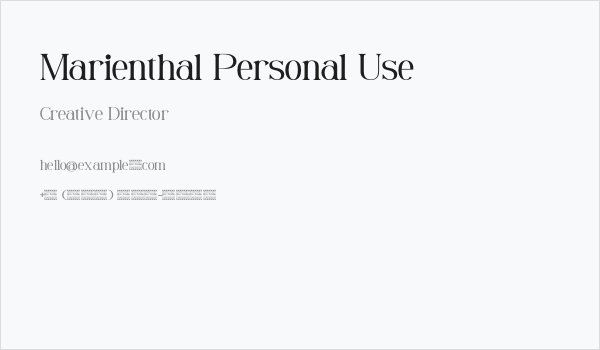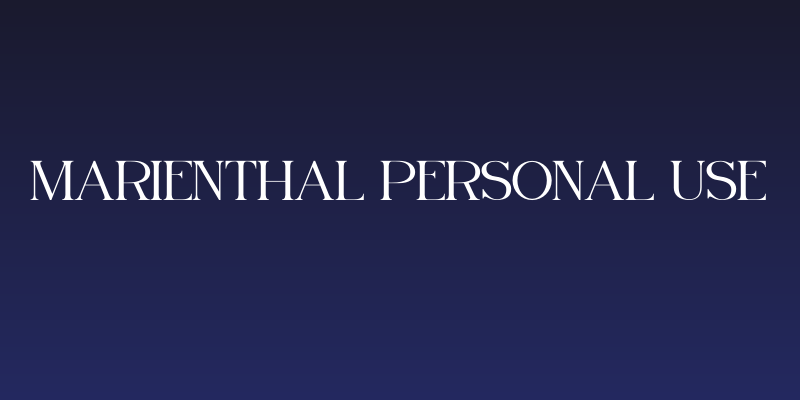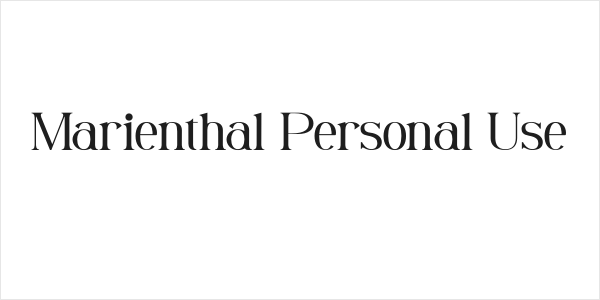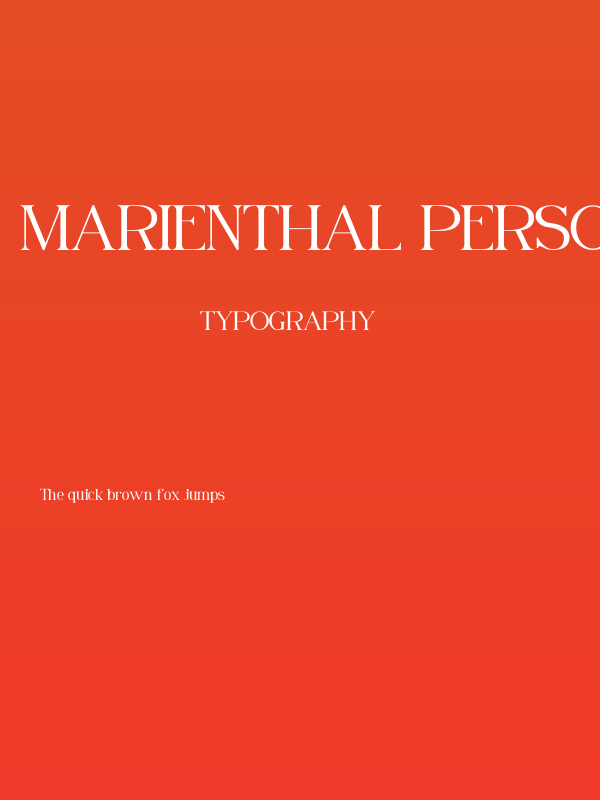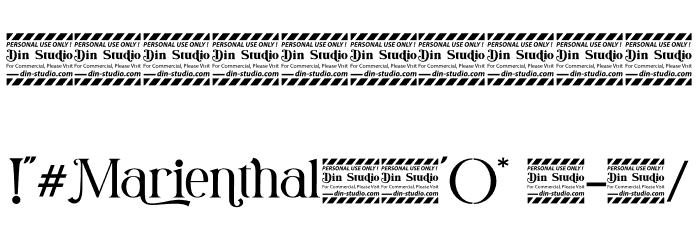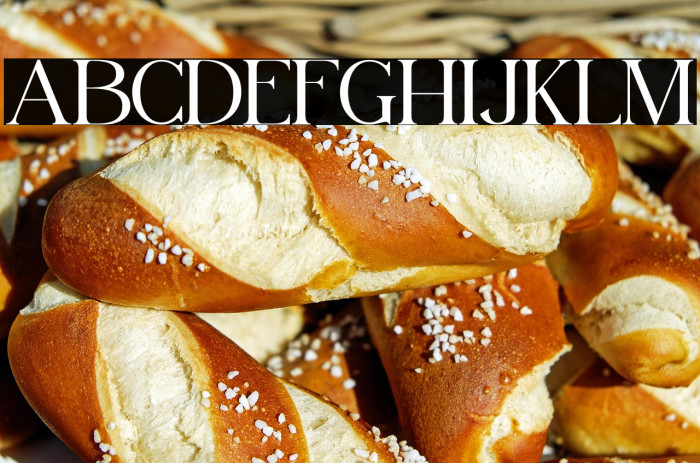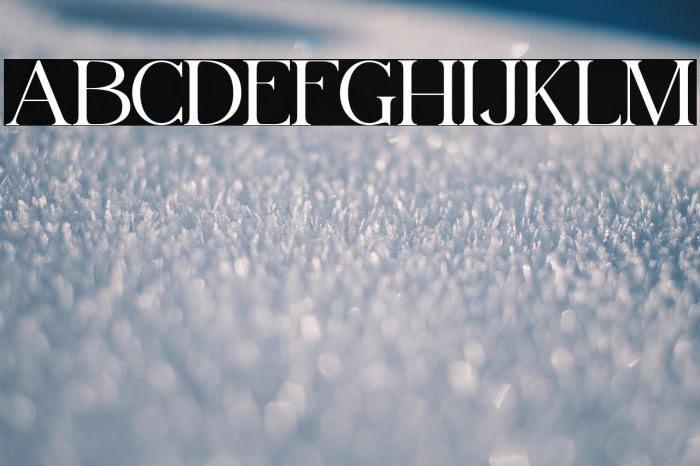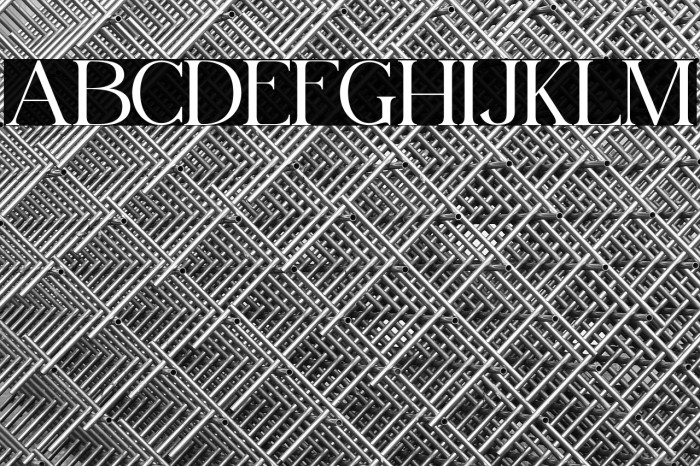
Marienthal Personal Use Font
Marienthal Personal Use Description
This font exhibits a classic serif style with elegant, elongated strokes and a refined appearance. The uppercase letters are tall and stately, with pronounced serifs that add a touch of sophistication. The lowercase letters maintain a consistent style, featuring smooth curves and a balanced weight distribution. The numerals are designed to complement the overall aesthetic, with a traditional look that ensures readability. Special characters are crafted with the same attention to detail, making them suitable for various design applications. The font's overall appearance is both timeless and versatile, making it ideal for projects that require a touch of elegance and class.
| Proposed Projects | Ideal for book covers, formal invitations, branding materials, and editorial design. |